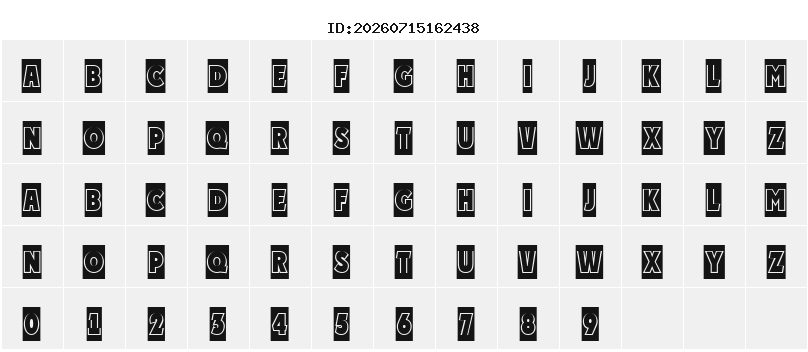
a_PlakatTitulCmGr Preview
About a_PlakatTitulCmGr.ttf
a_PlakatTitulCmGr.ttf is a modern, elegant sans-serif font designed for ultimate readability and visual harmony. Perfect for branding, headlines, web design, and print materials.